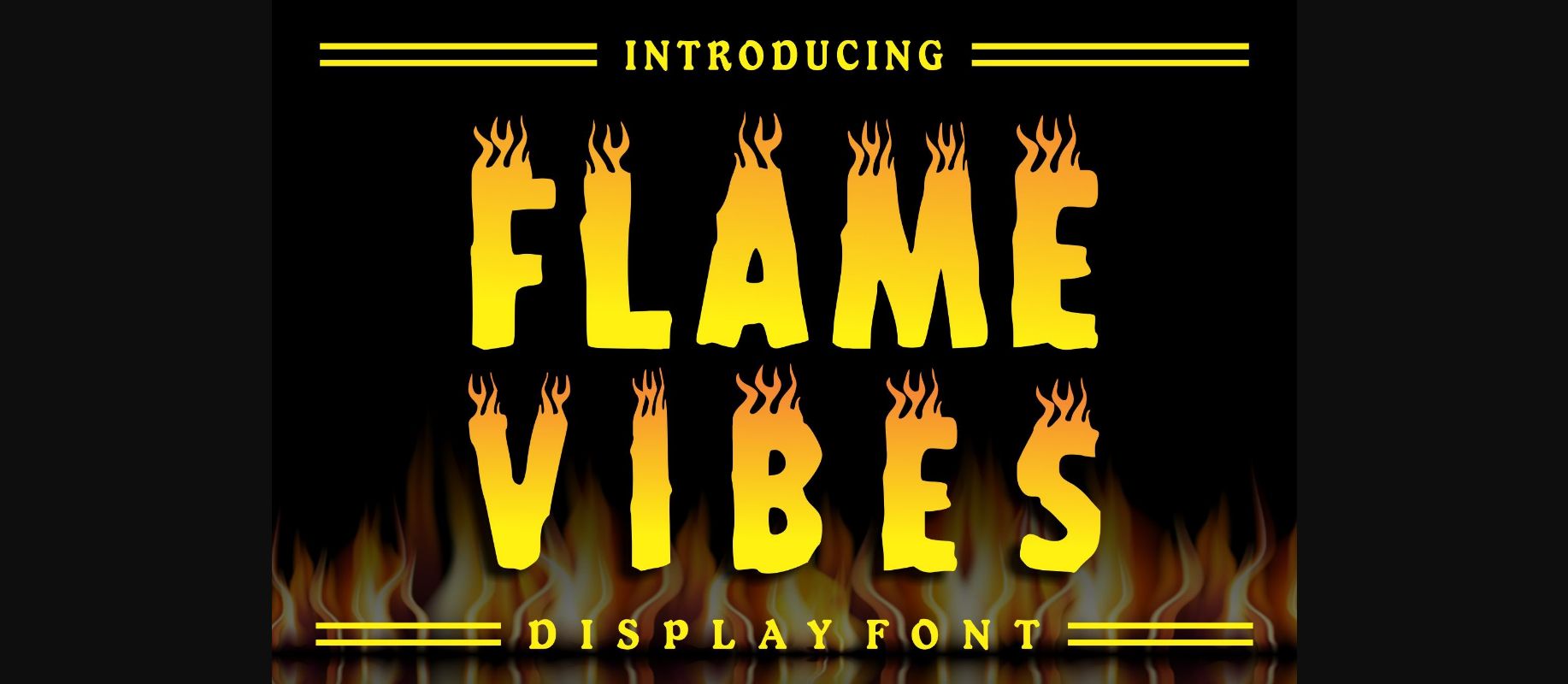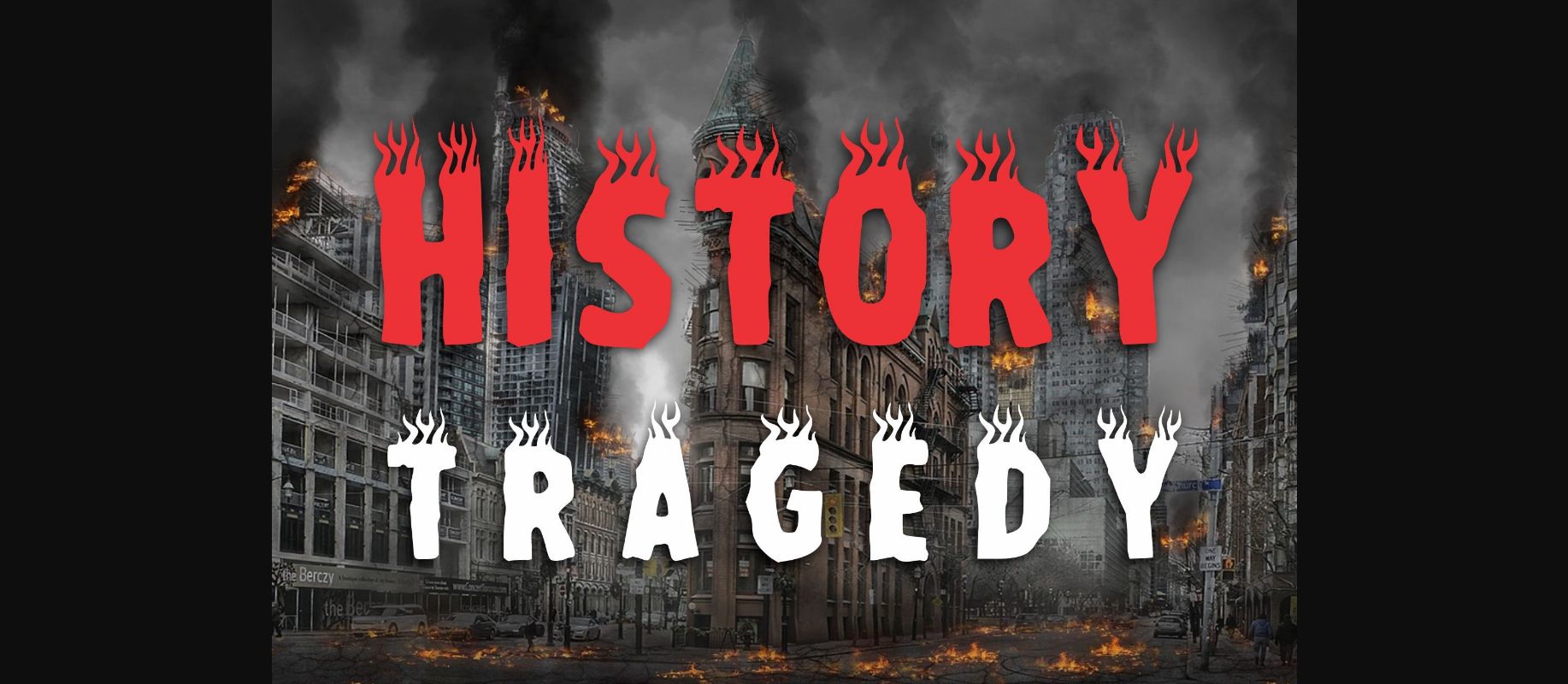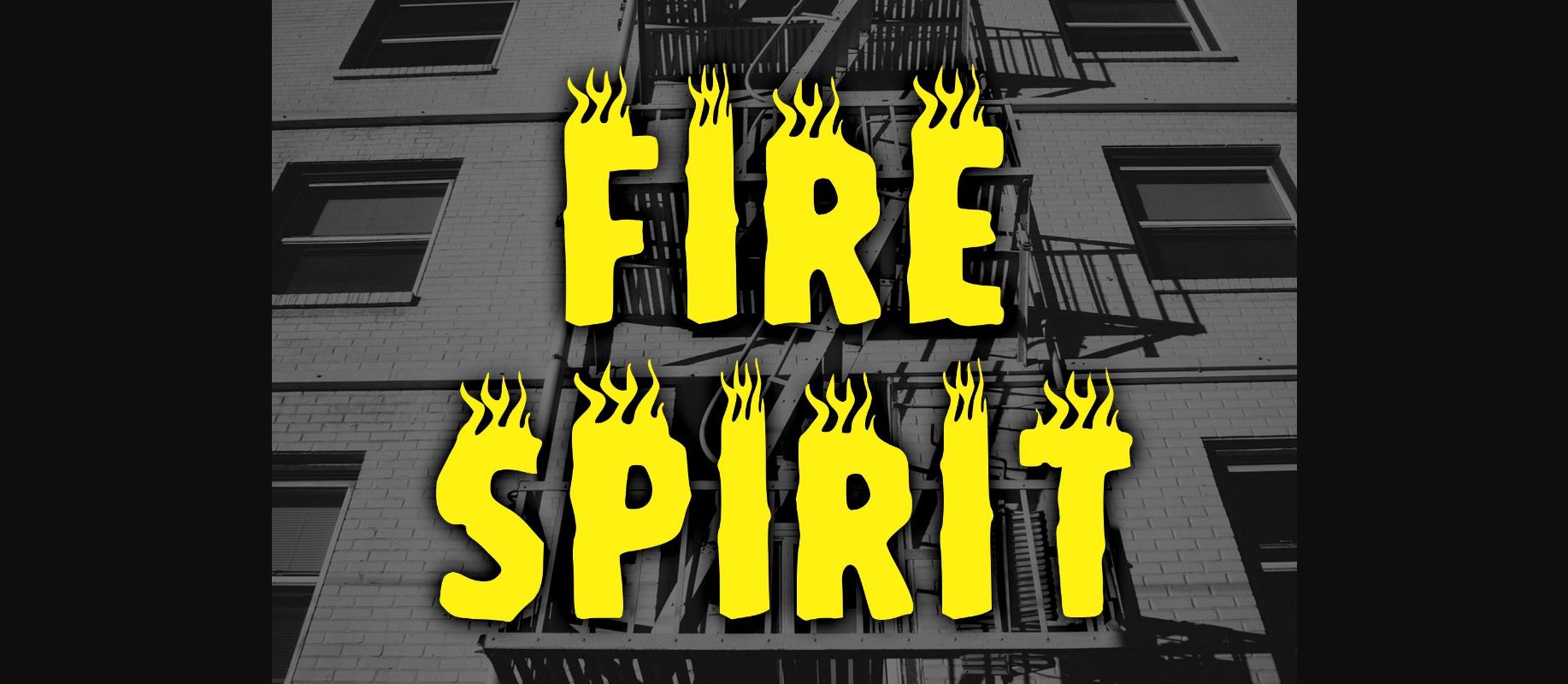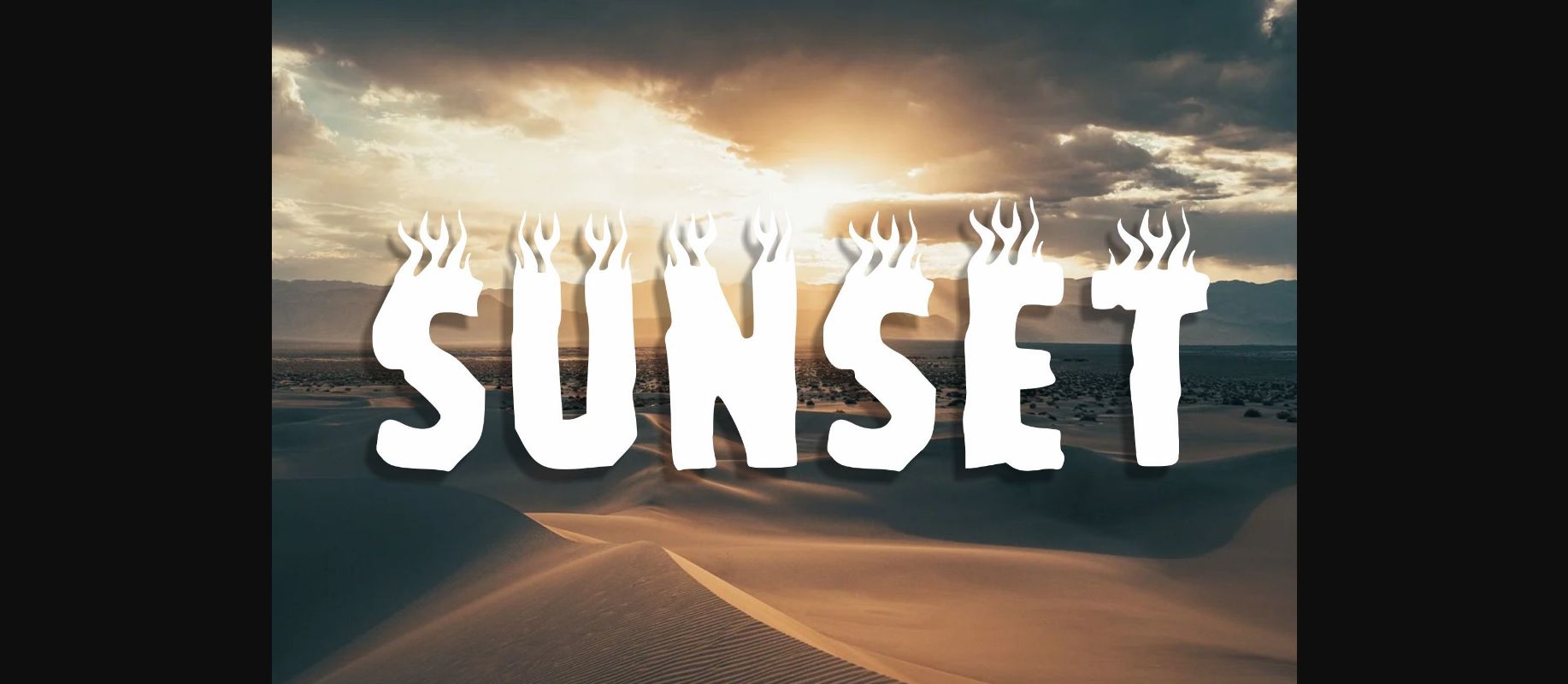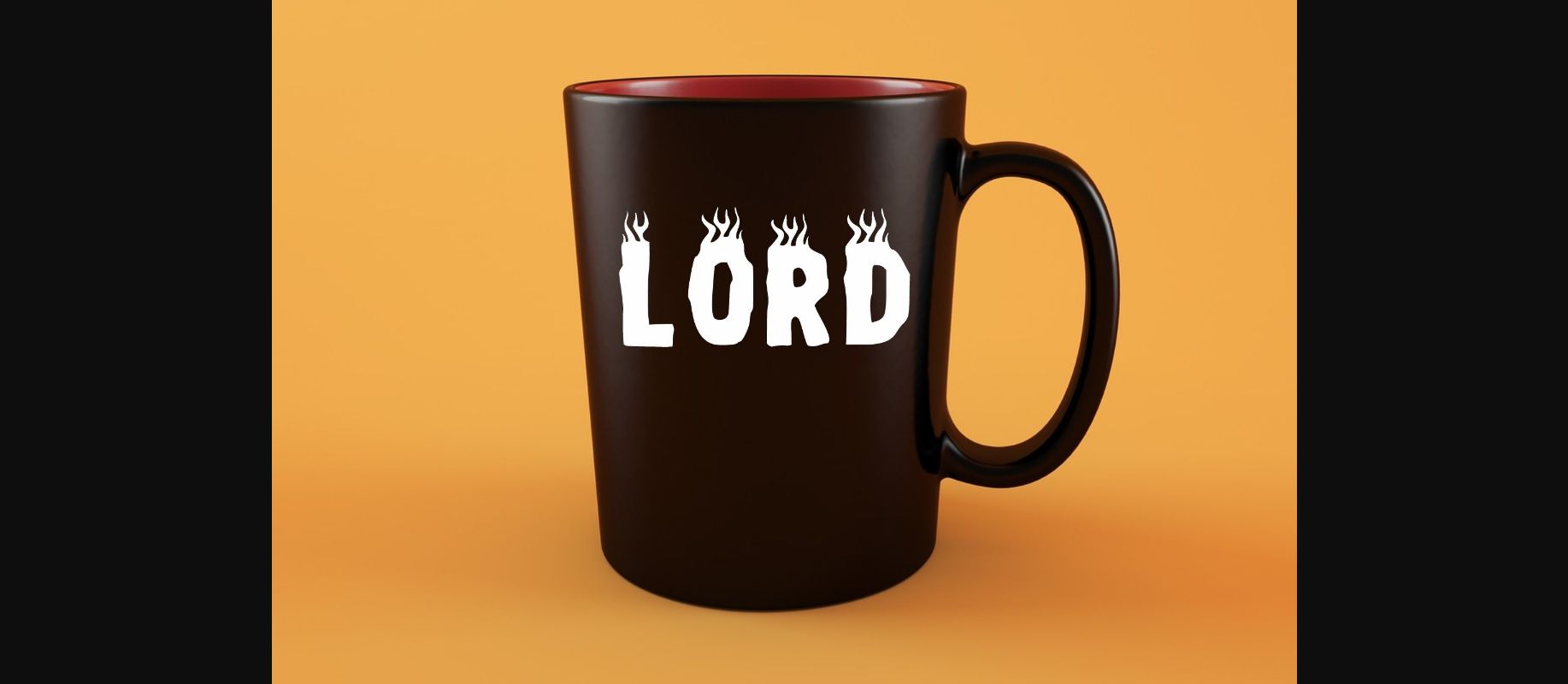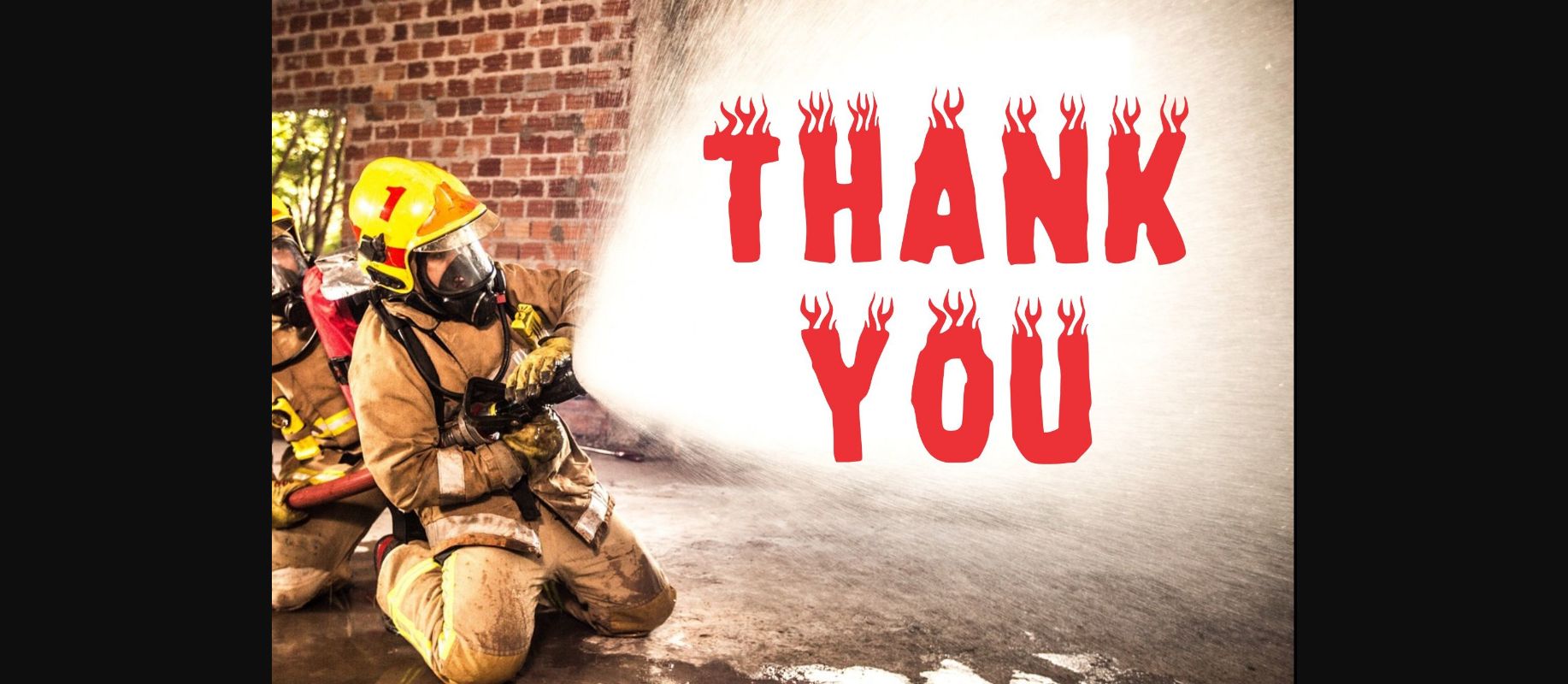
Flame Vibes a decorative font inspired by fire, it will make any of your creative designs look more attractive and inspirational. Add it to your projects and notice how it makes them stand out!